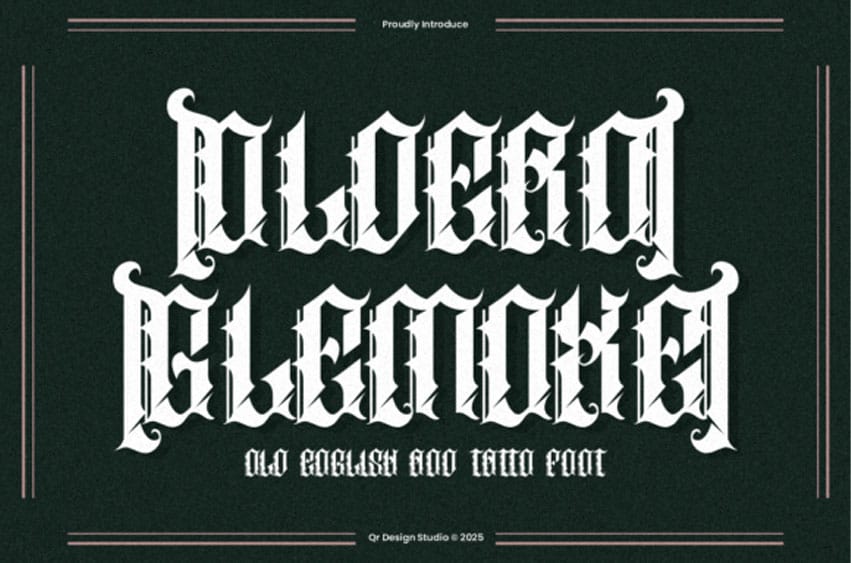
Oldero Glemoxe Font is a powerful blackletter font inspired by Old English calligraphy and traditional tattoo art.
This font features intricate, spiked serifs and dramatic strokes, making it ideal for gothic-themed branding, vintage designs, or bold tattoo projects. It’s a statement font packed with character and edge.